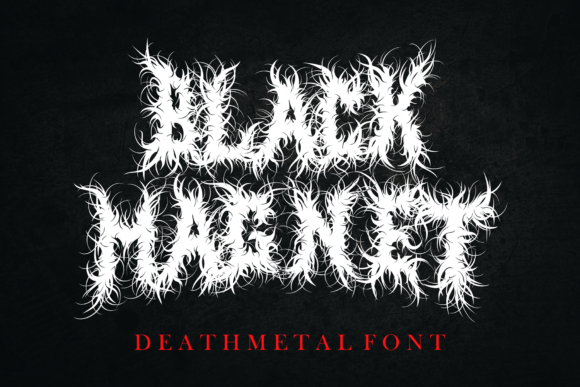
Introduction to Black Magnet Font
Black Magnet is great looking, rough, and metal-themed blackletter font.
It will look great in death metal music projects, and much more .